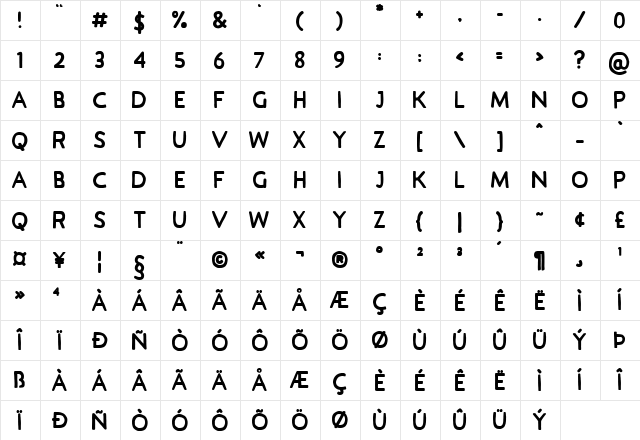
Bouncy Castle Bonus Bold Free Font
Bouncy Castle Bonus Bold
Style: Bonus Bold
Foundry: Tom Chalky
Designer: Tom Chalky
Design Context for Bouncy Castle
Bouncy Castle is a composed and adaptable typeface that performs quietly and consistently across a wide range of design contexts. Its bold stroke weight gives it real presence on the page.
Who designed the Bouncy Castle Bonus Bold font?